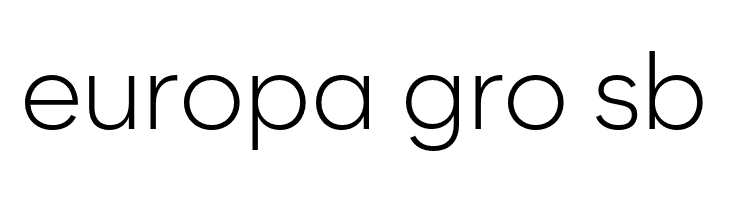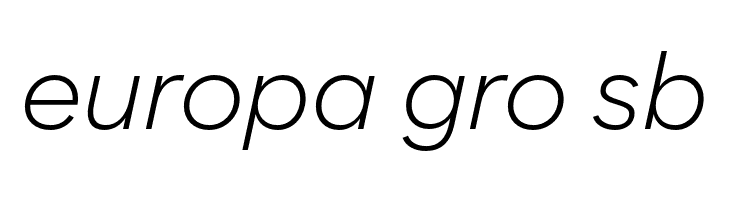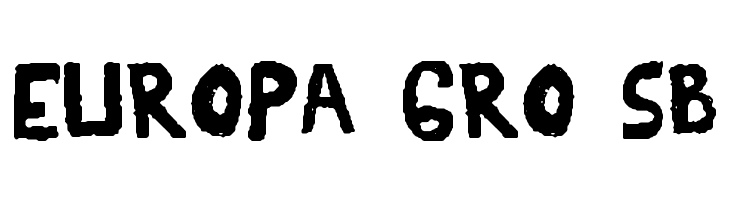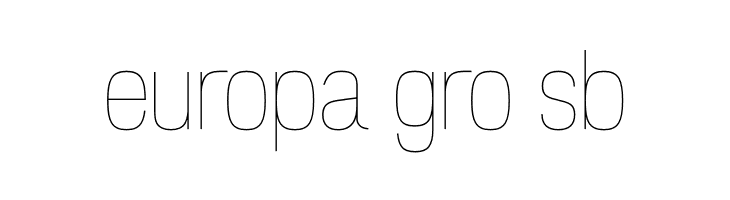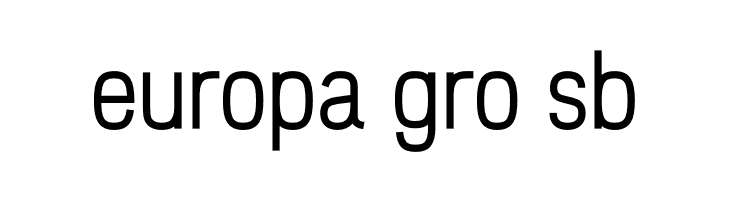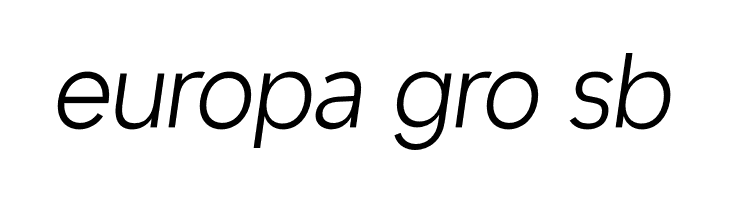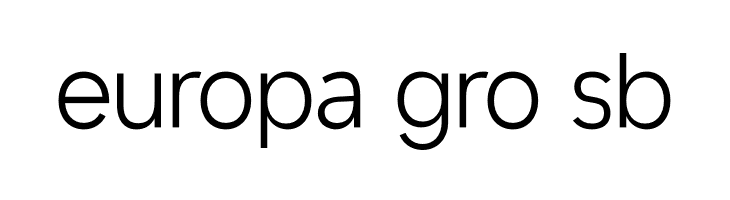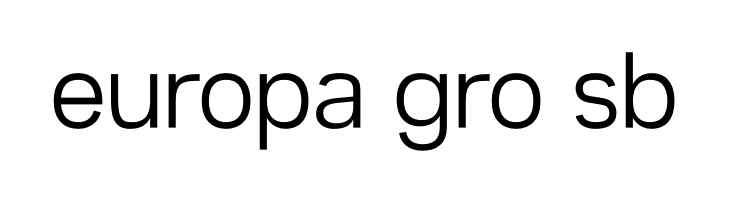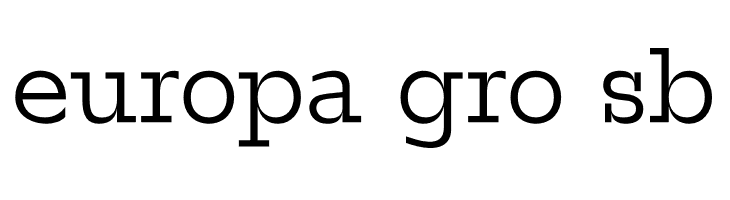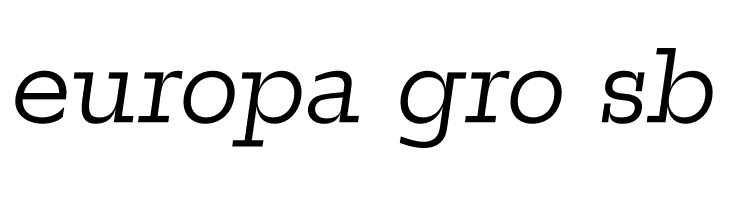
A modern, light, and italicized font with smooth, rounded edges.
A playful, casual handwritten font with smooth, flowing lines and rounded edges.
A playful, casual handwritten font with smooth, flowing lines.
A playful, handwritten font with a whimsical and casual style.
A modern, light sans-serif font with clean lines and excellent readability.
A modern, light sans-serif typeface with clean lines and excellent readability.
A modern, clean sans-serif font with a light weight and excellent readability.
A sleek, extra-light sans-serif font with a modern and condensed design.
A modern, extra-light sans-serif font with a narrow, elongated style.
A modern, light sans-serif font with tall, narrow characters and consistent stroke width.
A modern, light, and condensed sans-serif font with high legibility.
A playful, hand-drawn font with exaggerated serifs and a bouncy baseline.
A bold, geometric sans-serif font with a modern and clean aesthetic.
A bold, hand-drawn font with a playful and textured appearance.
A modern, elegant font with a clean and sophisticated appearance.
A sleek, light italic font with elegant and modern characteristics.
A clean and elegant serif font with a light weight and balanced proportions.
A modern, light sans-serif font with clean lines and uniform stroke width.
A modern, light, and elegant italic font with clean lines.
A clean, modern font with elongated characters and rounded edges.
A bold, futuristic font with geometric shapes and sharp angles.
A bold, futuristic font with rounded edges and a slight italic slant.
A sleek, modern font with geometric and minimalist design elements.
A refined serif font with elegant, thin strokes and high contrast.
A geometric, futuristic font with angular and modular letterforms.
A futuristic, geometric, light italic font with angular lines and a tech-inspired style.
( Updated : Multilingual support has been added; The Italic style has been removed as it looks too weird; 2 styles have been added : Light and Hairline. ZF2334 Squarish is a condensed monoline sans-serif font. It is similar to Helvetica Condensed. Lice )
A geometric, modern font with a squarish design and consistent structure.